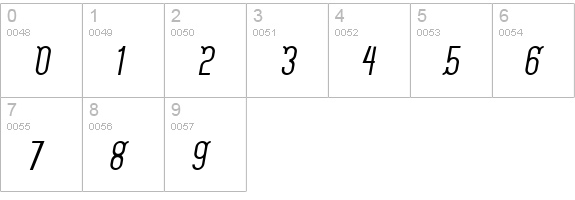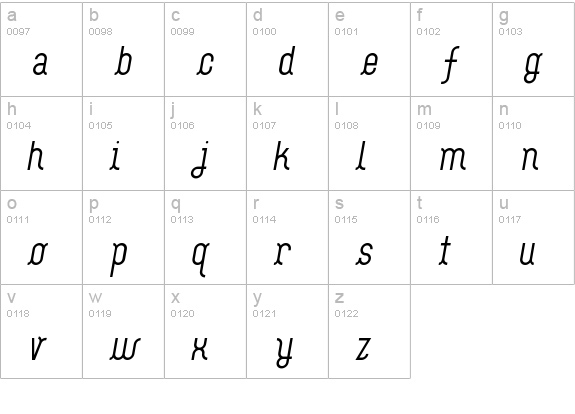
FlashBoy Font Details
FlashBoy font is a dynamic and energetic typeface that exudes a sense of speed and modernity. With its bold lines and sharp angles, this font is perfect for creating eye-catching designs that demand attention. Whether you're working on a poster, logo, or website, FlashBoy font brings a sense of excitement and energy to any project. Best of all, FlashBoy font is completely free to download at FontsMarket.com. This means you can add this stylish font to your collection without any cost, making it a valuable resource for designers and creatives looking to make a statement with their work. Don't miss out on the opportunity to enhance your designs with the striking and bold aesthetic of FlashBoy font - download it today and see the impact it can have on your projects!